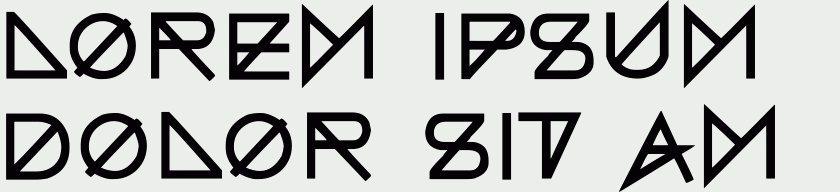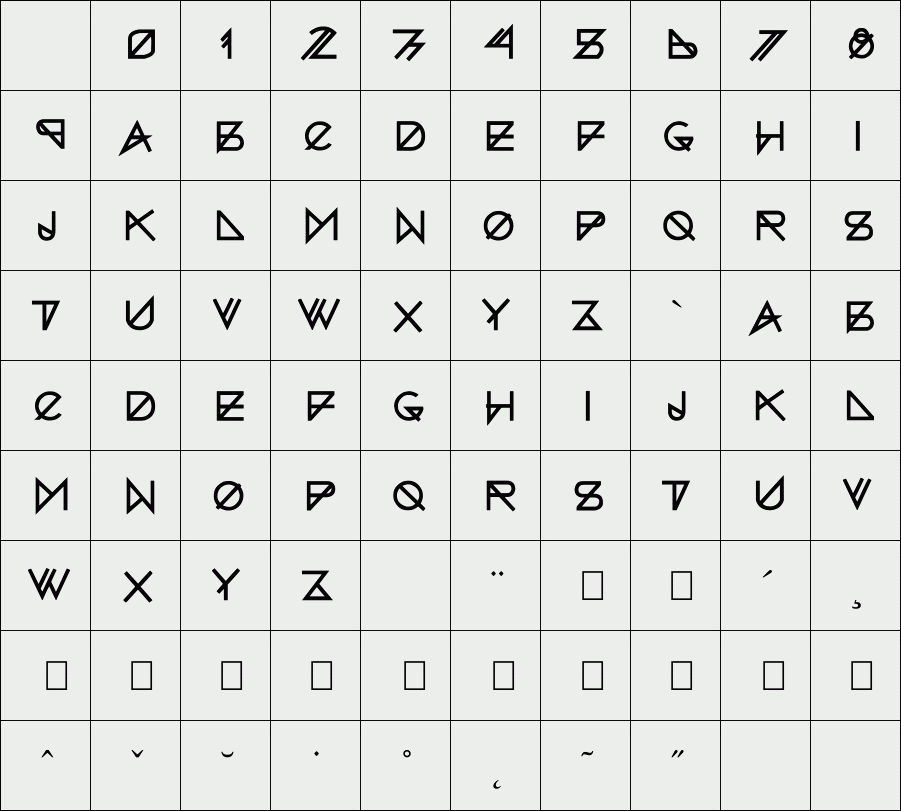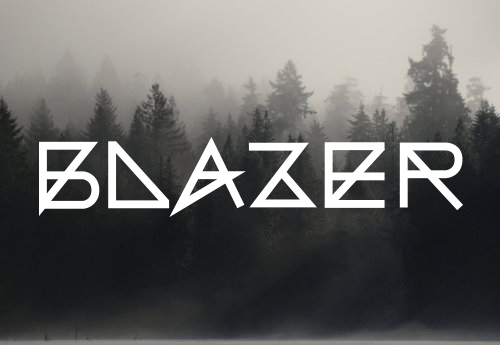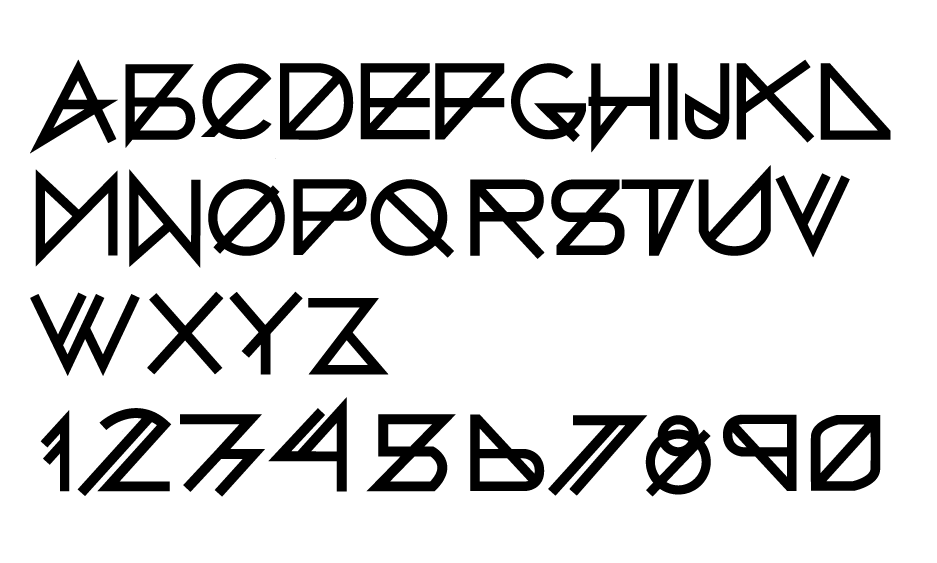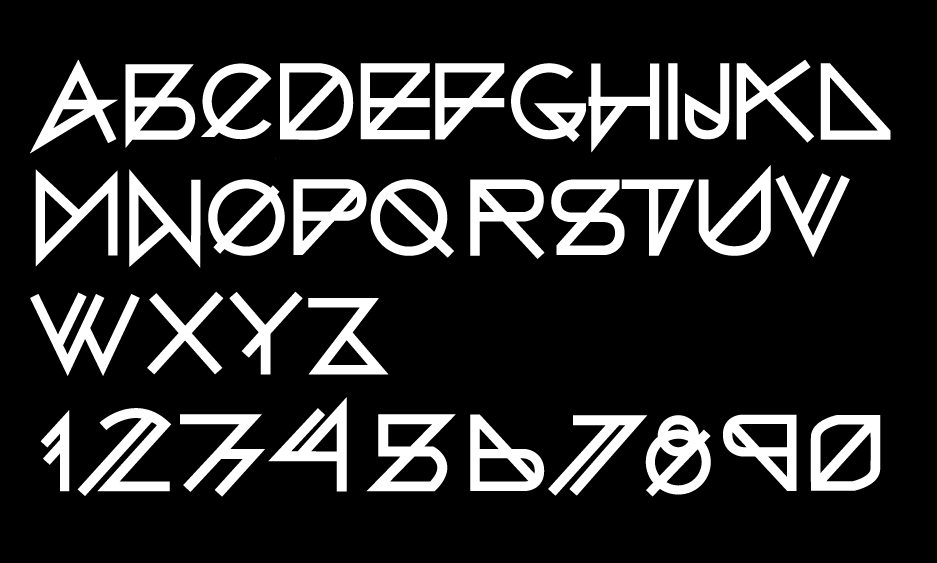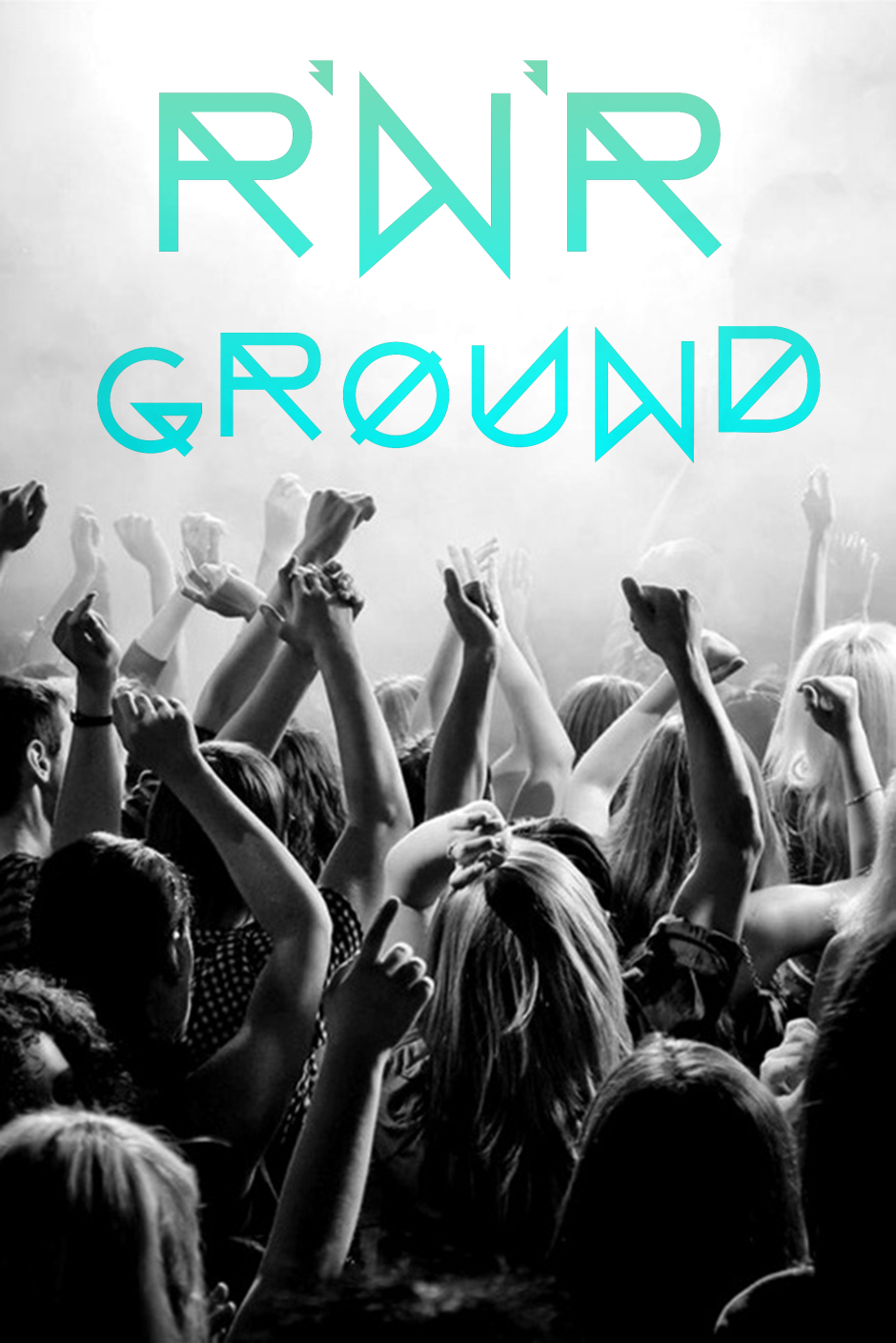
Blazer
Blazer is a kind of font inspired by simple and geometric line as a '80 rock scene iconography.
It works well for the creation of posters, pictures and it can use for short slogan.
Designer: Domenico Ruffo